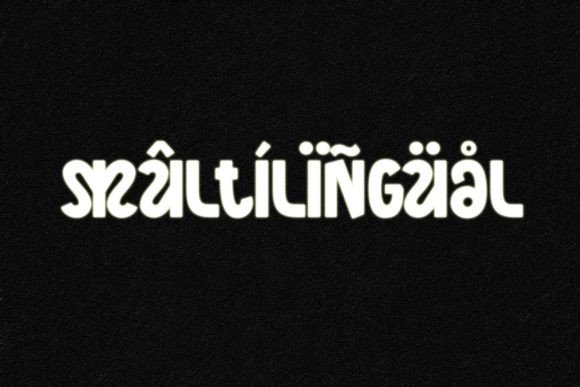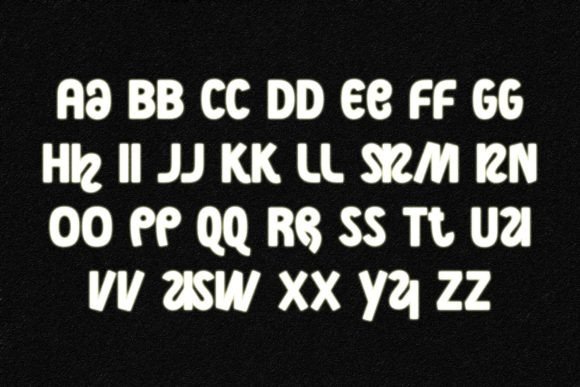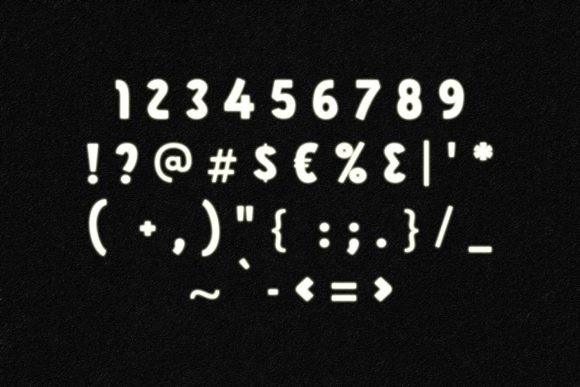
Discover the Magic of Constellation Font: A Unique Display Font for Your Design Projects
Are you tired of using the same old fonts in your design projects? Look no further than the Constellation Font, a unique display font that is perfect for adding a touch of magic to your designs. With its easy-to-read and friendly appearance, Constellation Font is ideal for a wide range of design projects, from branding and advertising to packaging and web design.
What is Constellation Font?
Constellation Font is a carefully crafted display font that features a distinctive and eye-catching style. Its unique design makes it stand out from more traditional fonts, adding a touch of personality and whimsy to any design project. Whether you’re looking to create a bold statement or add a subtle touch of elegance, Constellation Font is the perfect choice.
Key Features of Constellation Font
- Unique and eye-catching design: Constellation Font features a distinctive style that sets it apart from more traditional fonts.
- Easy-to-read: Despite its unique design, Constellation Font is highly legible, making it perfect for use in a wide range of design projects.
- Friendly appearance: Constellation Font has a warm and approachable feel, making it ideal for designs that need to convey a sense of friendliness and approachability.
- Highly versatile: Constellation Font can be used in a wide range of design projects, from branding and advertising to packaging and web design.
Uses for Constellation Font
Constellation Font is a highly versatile font that can be used in a wide range of design projects. Here are just a few examples of how you can use Constellation Font:
- Branding and advertising: Constellation Font is perfect for use in branding and advertising projects, where its unique design and friendly appearance can help to create a memorable and engaging brand identity.
- Packaging design: Constellation Font is ideal for use in packaging design, where its easy-to-read and eye-catching style can help to make your products stand out on store shelves.
- Web design: Constellation Font can be used in web design to add a touch of personality and whimsy to your website or blog.
- Graphic design: Constellation Font is perfect for use in a wide range of graphic design projects, from brochures and flyers to posters and banners.
Constellation Font is a unique and versatile display font that is perfect for adding a touch of magic to your design projects. With its easy-to-read and friendly appearance, Constellation Font is ideal for a wide range of design projects, from branding and advertising to packaging and web design. Whether you’re a designer, craft, or DIY enthusiast, Constellation Font is a great choice for anyone looking to add a little personality and whimsy to their designs.
So why not give Constellation Font a try? With its bold and eye-catching design, easy-to-read appearance, and friendly feel, it’s the perfect choice for any design project that needs a little extra something special.